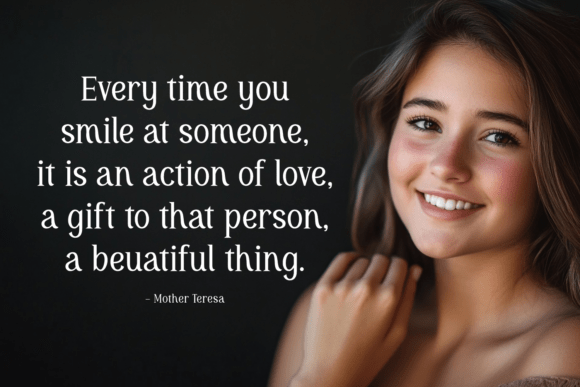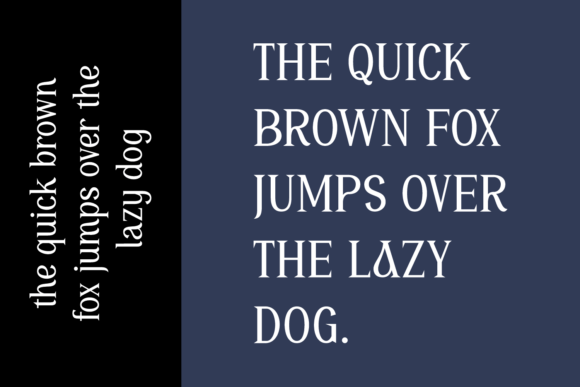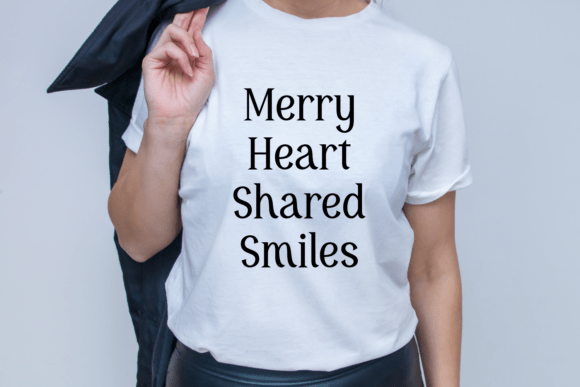
Introduction to Ramah Font
Ramah is a sophisticated and highly elegant modern serif font that combines the timeless appeal of classic typography with crisp, contemporary verticality and strong contrast.
This refined modern serif typeface features beautifully balanced thin and thick strokes, with tall ascenders and a generous x-height, lending it an air of grace, luxury, and authority The Ramah font is the definitive choice for sophisticated branding, editorial design, high-end wedding stationery, and fashion-forward magazine layouts where clarity meets prestige.